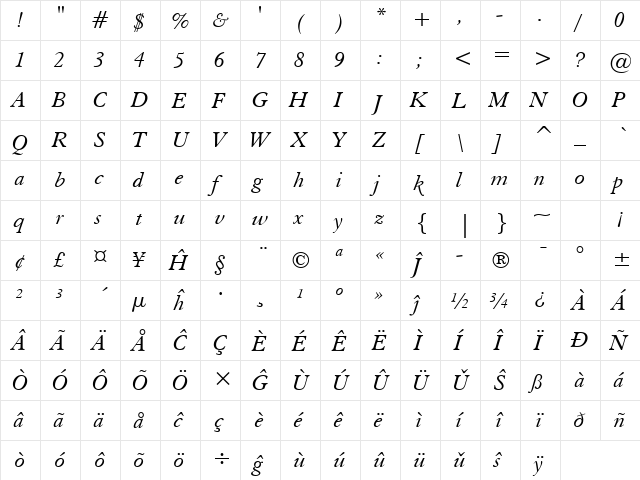
ElegaGarmnd BT Eo Italic
Design Context for ElegaGarmnd BT Eo Typeface
ElegaGarmnd BT Eo is a composed and adaptable typeface that performs quietly and consistently across a wide range of design contexts. Its italic angle brings a sense of urgency and motion to the letterforms.
Pro Tip: Try ElegaGarmnd BT Eo for annotation and caption copy alongside an upright companion — the contrast in angle creates a dynamic but ordered typographic system.